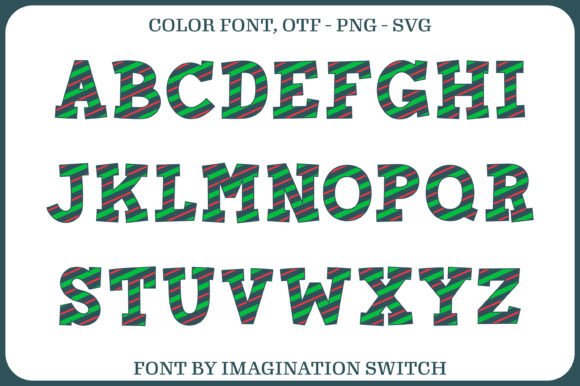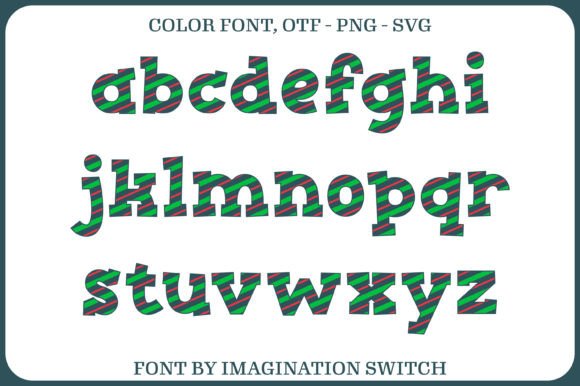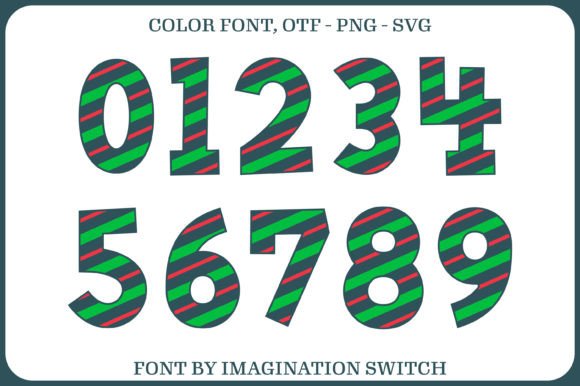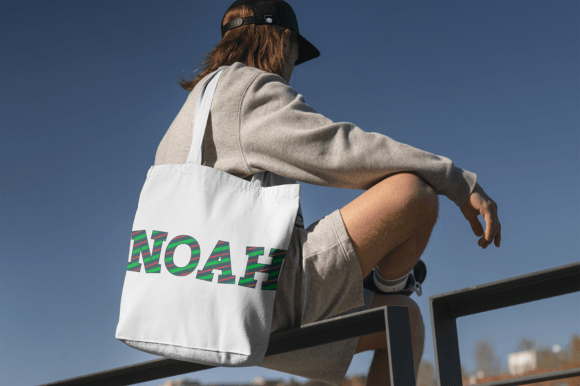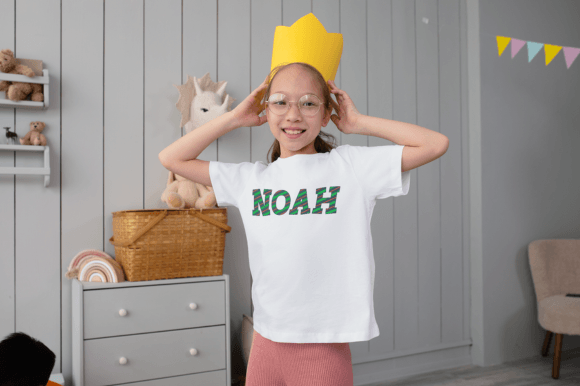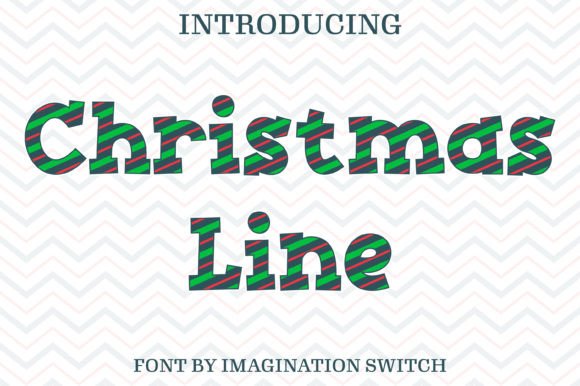
Introducing the Christmas Line Font: A Vibrant Typographic Marvel
Are you looking for a font that can add a dash of uniqueness and creativity to your designs? Look no further than the Christmas Line Font, a captivating typographic creation that utilizes intriguing colors to enhance its visual appeal. This font is meticulously designed to provide flexibility across various types of projects, making it an ideal choice for designers and crafters alike.
A Complete Set of Characters
The Christmas Line Font boasts a complete set of characters, including uppercase, lowercase, and numbers, ensuring that you have everything you need to create stunning designs. The font’s versatility makes it suitable for a wide range of purposes, including print designs, web designs, promotional materials, and more. Whether you’re working on a festive holiday project or a creative endeavor, this font is sure to impress.
Intriguing Colors for Visual Appeal
One of the standout features of the Christmas Line Font is its carefully chosen colors for each character. These colors add a mesmerizing visual touch, making each word and number stand out. The font’s unique color scheme is sure to capture the attention of your audience, making your designs unforgettable. With the Christmas Line Font, you can express your creativity in every project you undertake, crafting designs that leave a lasting impression.
Excellent Legibility and Versatility
The Christmas Line Font is designed with excellent legibility in mind, ensuring that your message is conveyed clearly and effectively. Its visually appealing presentation makes it an ideal choice for enhancing the visualization of your message. Whether you’re creating promotional materials, website content, or print designs, this font is sure to elevate your work.
Tips for Using the Christmas Line Font
To get the most out of the Christmas Line Font, here are a few tips to keep in mind:
• Experiment with different colors and combinations to find the perfect look for your project.
• Use the font for headlines, titles, and other prominent text to add visual interest.
• Pair the font with complementary fonts to create a unique and harmonious design.
In conclusion, the Christmas Line Font is a vibrant and versatile typographic creation that is sure to add a touch of uniqueness and creativity to your designs. With its complete set of characters, intriguing colors, and excellent legibility, this font is an ideal choice for designers and crafters alike. Whether you’re working on a festive holiday project or a creative endeavor, the Christmas Line Font is sure to impress.